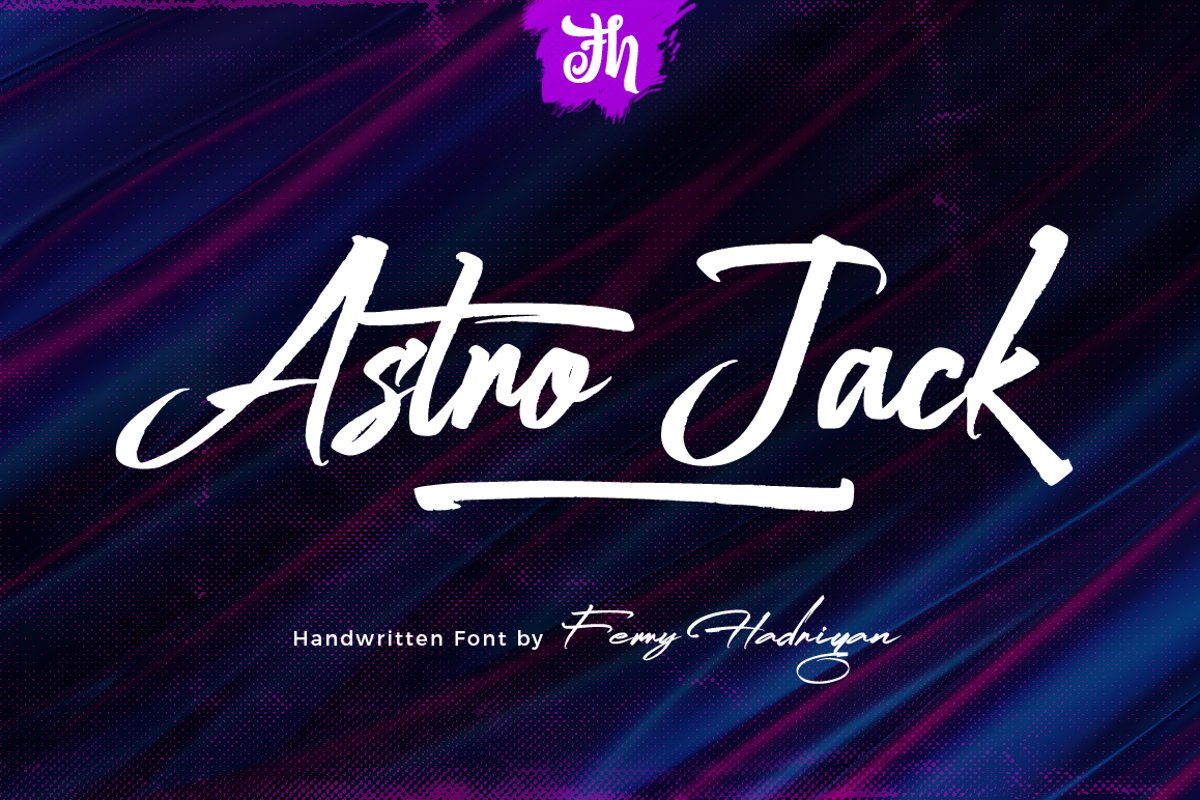
Astro Jack - Handwritten Font
Astro Jack
Astro Jack Swashes
Astro Jack - Handwritten Font
Astro Jack is script font with handlettering brush style, with opentype feature include of the font. Suitable for design, element design, wedding, event, t-shirt, logo, badges, sticker, and awesome work, etc...
- All Standard Character, Symbol, Multilanguage, Ligature, Stylistic Set, and Swashes.
- Unique style fonts